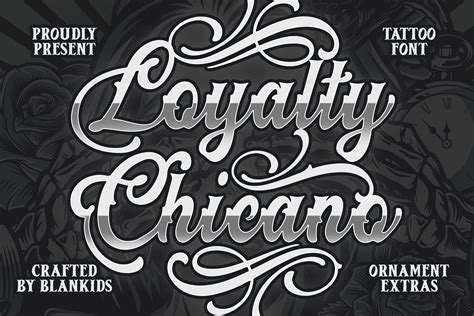
Chicano lettering font is a vibrant and expressive style that has deep roots in the cultural heritage of the Chicano community. This distinctive font style is more than just a design element; it is a reflection of the community's rich history, struggles, and triumphs. Chicano lettering font is characterized by its bold, dynamic lines and intricate details, often incorporating elements of Mexican and indigenous art. It is a powerful tool for expressing identity and cultural pride, making it a popular choice for various artistic and design projects.
Understanding Chicano Lettering Font
Chicano lettering font is deeply intertwined with the Chicano art movement, which emerged in the 1960s and 1970s as a response to social and political issues affecting the Chicano community. This movement sought to reclaim and celebrate Chicano identity through various forms of art, including murals, graffiti, and typography. Chicano lettering font is a key component of this movement, often seen in street art and public murals that convey messages of resistance, empowerment, and cultural pride.
One of the defining features of Chicano lettering font is its bold and dynamic design. The letters are often thick and rounded, with sharp angles and intricate details. This style creates a strong visual impact, making it ideal for large-scale artworks and public displays. The font often incorporates elements of Mexican and indigenous art, such as Aztec and Mayan motifs, which add a layer of cultural depth and authenticity.
Chicano lettering font is also known for its versatility. It can be used in a variety of contexts, from street art and murals to graphic design and branding. Its bold and expressive nature makes it a popular choice for logos, posters, and other promotional materials. Additionally, Chicano lettering font is often used in educational and cultural settings to promote awareness and appreciation of Chicano heritage.
The Cultural Significance of Chicano Lettering Font
The cultural significance of Chicano lettering font cannot be overstated. It serves as a visual representation of the Chicano community's struggles and triumphs, as well as its rich cultural heritage. The font is often used to convey messages of resistance and empowerment, making it a powerful tool for social and political activism. For example, Chicano lettering font is commonly seen in murals and graffiti that address issues such as immigration, racial justice, and community empowerment.
Chicano lettering font is also a means of preserving and celebrating Chicano culture. By incorporating elements of Mexican and indigenous art, the font helps to keep these cultural traditions alive and relevant. It serves as a reminder of the community's roots and the importance of cultural heritage in shaping identity. Additionally, Chicano lettering font is often used in educational settings to teach about Chicano history and culture, making it an important tool for cultural preservation and education.
One of the most notable examples of Chicano lettering font in action is the work of Chicano artists such as Los Four, a group of artists who gained prominence in the 1970s for their vibrant and expressive murals. Their work often featured bold, dynamic lettering that incorporated elements of Mexican and indigenous art, making it a powerful visual representation of Chicano identity. Other notable artists who have contributed to the development of Chicano lettering font include Gronk and Patssi Valdez, both of whom have created iconic works that showcase the beauty and complexity of this font style.
Designing with Chicano Lettering Font
Designing with Chicano lettering font requires a deep understanding of its cultural significance and aesthetic principles. Here are some key considerations for incorporating Chicano lettering font into your design projects:
- Cultural Sensitivity: It is essential to approach Chicano lettering font with cultural sensitivity and respect. This font style is deeply rooted in the cultural heritage of the Chicano community, and it is important to use it in a way that honors and celebrates this heritage.
- Aesthetic Principles: Chicano lettering font is characterized by its bold, dynamic lines and intricate details. When designing with this font, it is important to maintain these aesthetic principles to ensure that the design remains true to its cultural roots.
- Contextual Relevance: Chicano lettering font is often used to convey messages of resistance, empowerment, and cultural pride. When incorporating this font into your design projects, consider the context and ensure that it aligns with these themes.
Here are some steps to help you get started with designing with Chicano lettering font:
- Research: Begin by researching the history and cultural significance of Chicano lettering font. This will help you gain a deeper understanding of its aesthetic principles and cultural context.
- Sketching: Start by sketching out your design ideas. This will allow you to experiment with different lettering styles and compositions before committing to a final design.